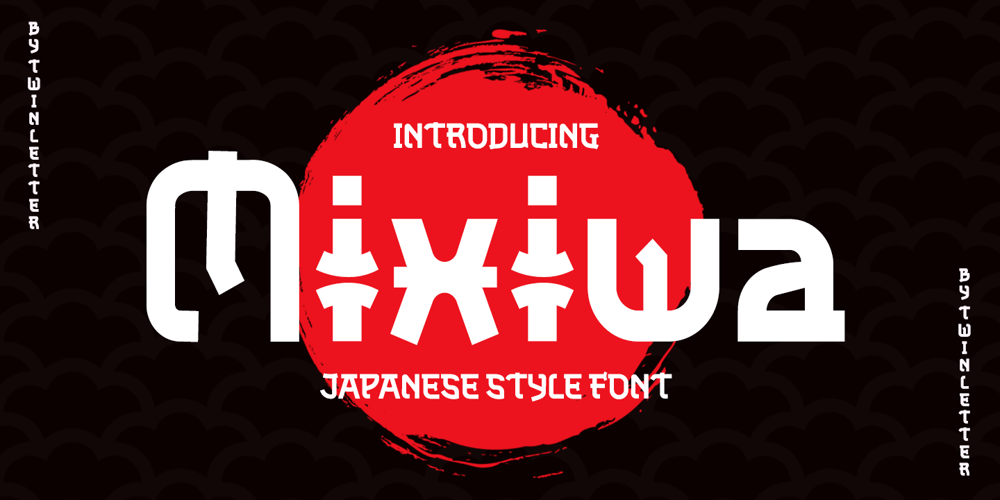
Mixiwa Faux Font Family was designed by Rozikan and published by Twinletter. Mixiwa Faux contains 1 styles and family package options. We introduce the Mixiwa typeface, which we created with great attention to give it a dashing and stylish appearance. If you choose this typeface, your entire project will be bombastic, striking, and will always grab your audience’s attention. Your entire project will be excellent if you use this font!Logotypes, food banners, branding, brochure, posters, movie titles, book titles, quotes, and more may all benefit from this font.Of course, using this font in your various design projects will make them excellent and outstanding; many viewers are drawn to the striking and unusual graphic display.Start utilizing this typeface in your projects to make them stand out.